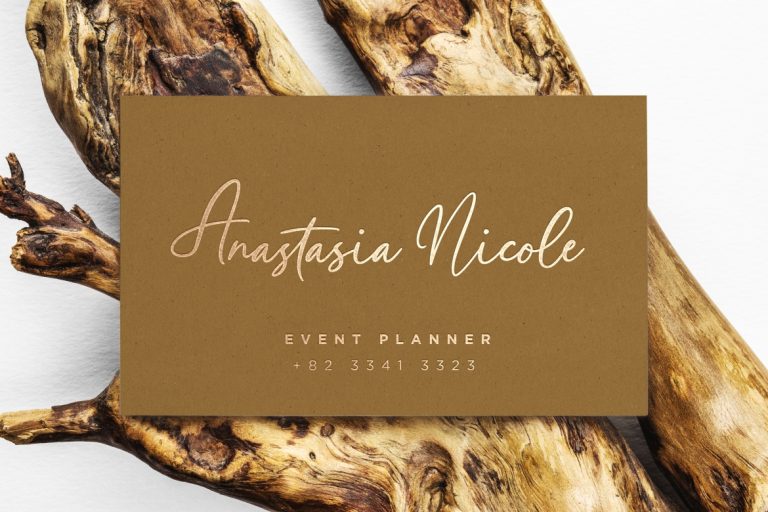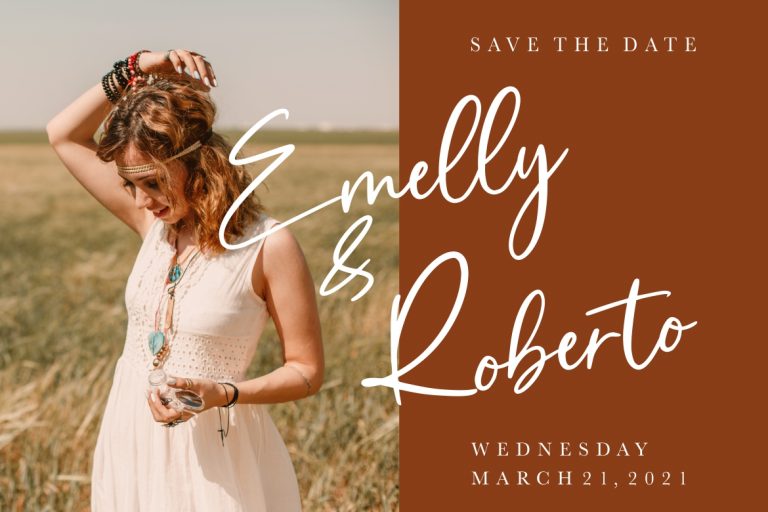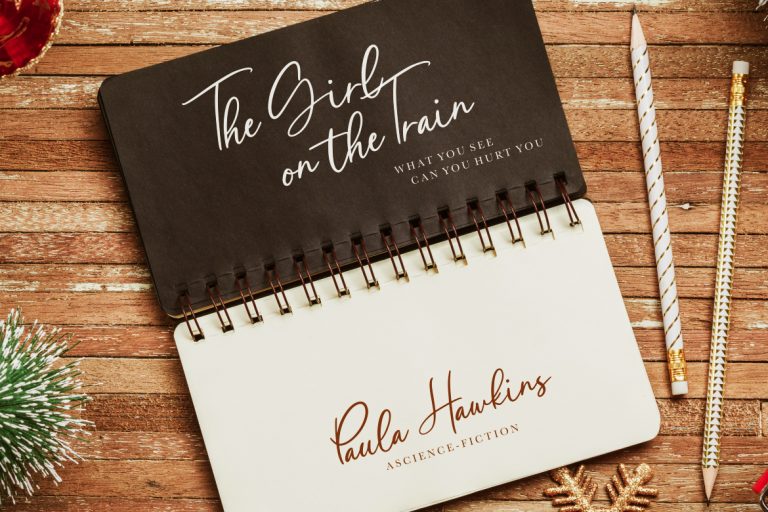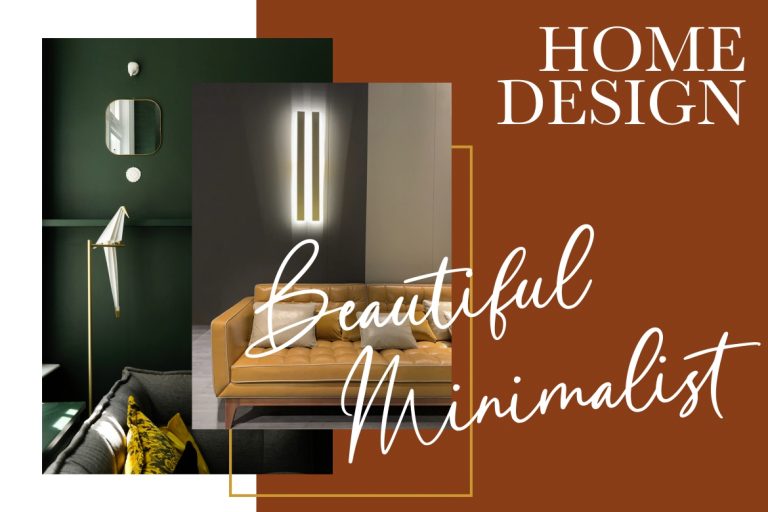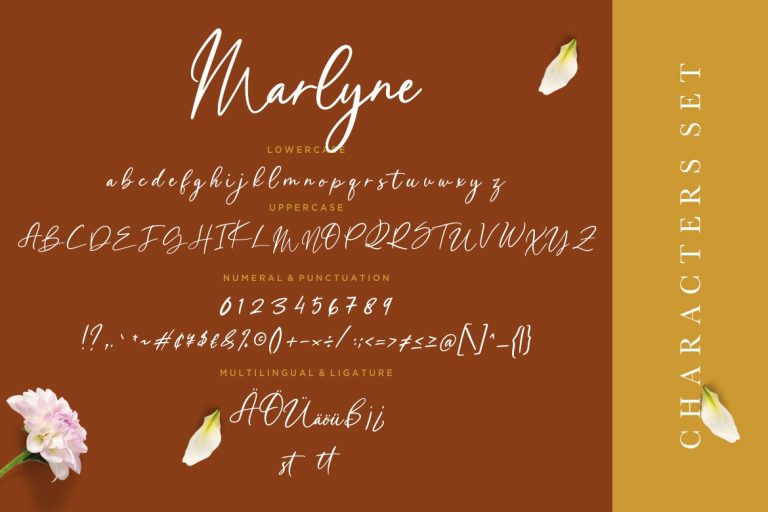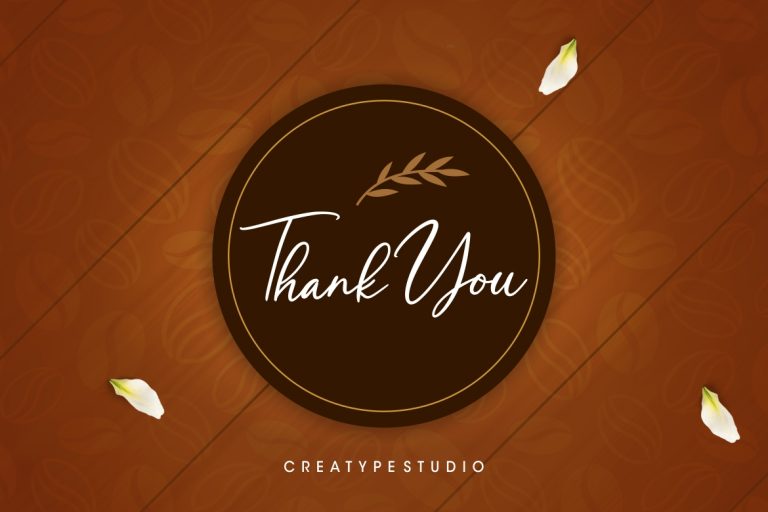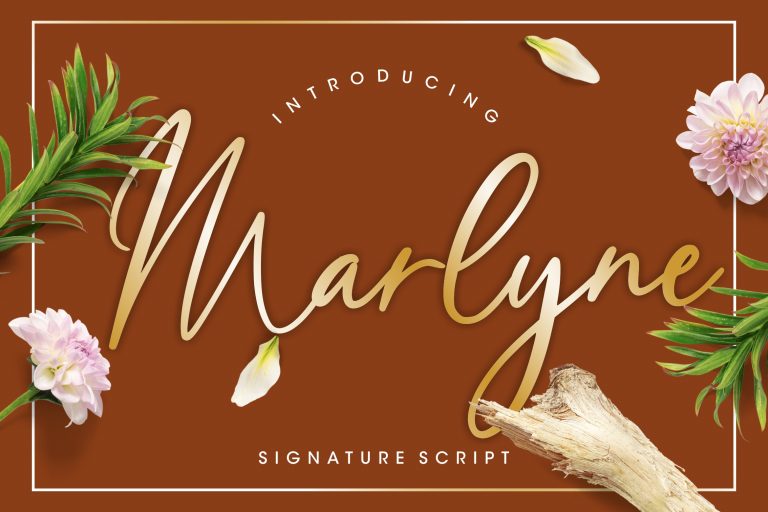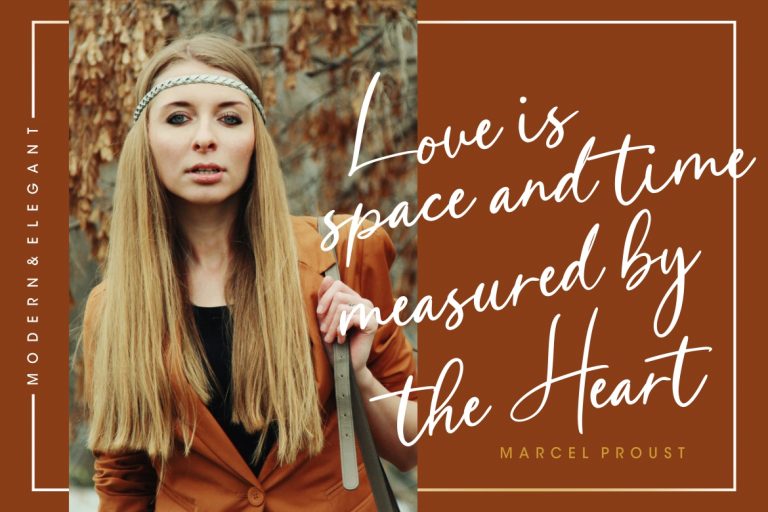
Marlyne is signature handwritten script that perfect for your latest project.
Marlyne is perfect for branding projects, logo, wedding designs, social media posts, advertisements, product packaging, product designs, label, photography, watermark, invitation, stationery and any projects that need handwriting taste.
• Fonts include multilingual support for; ä ö ü Ä Ö Ü ß ¿ ¡
Marlyne Signature Script